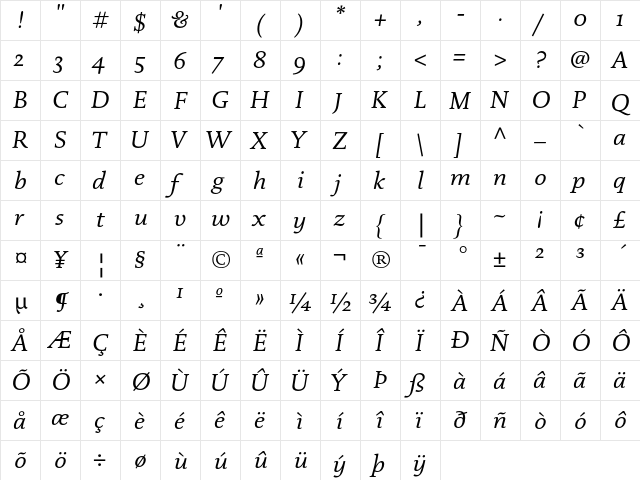
DTL Documenta ST Italic
Design Context for DTL Documenta Typeface
DTL Documenta is a composed and adaptable typeface that performs quietly and consistently across a wide range of design contexts. The dynamic lean of this cut emphasises speed and emphasis in any layout.
Pro Tip: Use DTL Documenta for emphasis, pull quotes, and subheadings where its slanted energy can add rhythm to the layout.